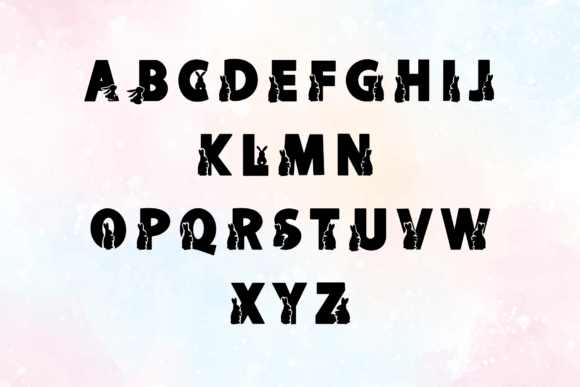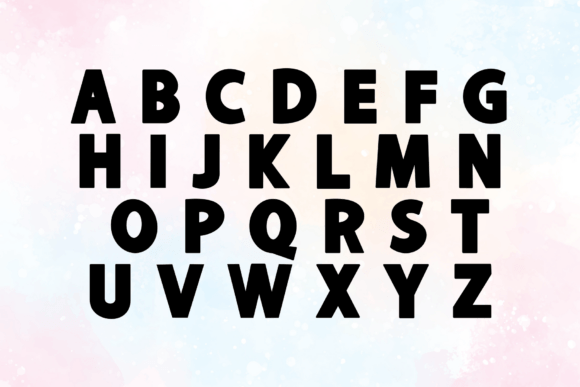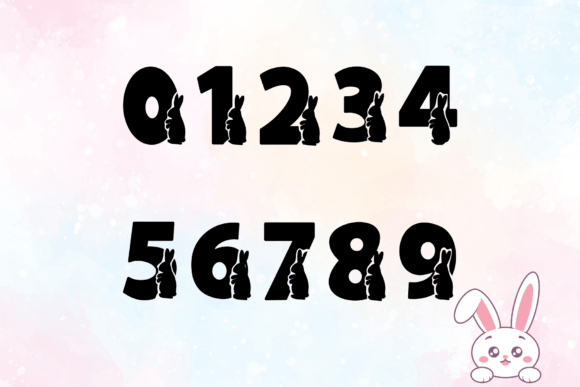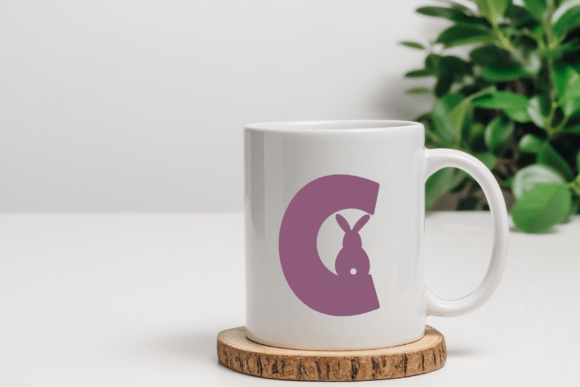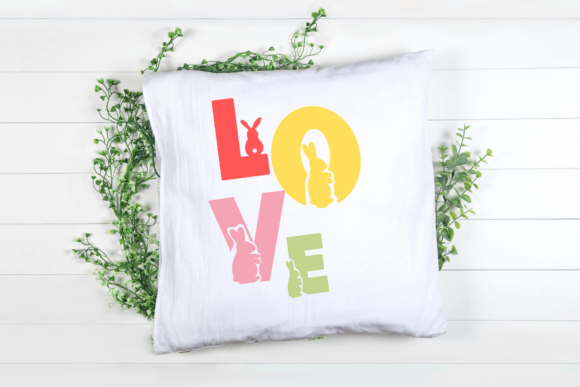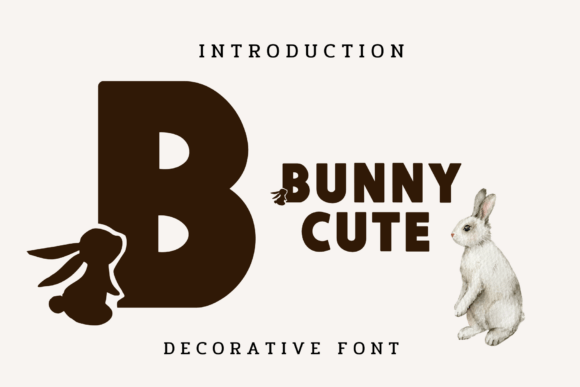
Bunny Cute Font: The Ultimate Decorative Font for Creative Projects
Are you a designer, crafter, or DIY enthusiast looking for a fun and playful font to add a touch of whimsy to your projects? Look no further than Bunny Cute Font! This adorable decorative font is perfect for a wide range of creative endeavors, from taking notes and writing diaries to creating greeting cards, banners, and social media posts.
What is Bunny Cute Font?
Bunny Cute Font is a decorative font designed to bring a smile to your face. Its playful and charming appearance makes it ideal for projects that require a personal touch. Whether you’re a professional designer or a crafty hobbyist, this font is sure to inspire your creativity and add a dash of fun to your work.
Uses for Bunny Cute Font
The versatility of Bunny Cute Font is one of its most appealing features. Here are just a few ideas for how you can use this delightful font in your projects:
- Note-taking and journaling: Add a touch of personality to your notes and diary entries with Bunny Cute Font. It’s the perfect way to make your writing more visually appealing and fun to read.
- Greeting cards and invitations: Create one-of-a-kind greeting cards, invitations, and party decorations with Bunny Cute Font. Its playful design is sure to delight your friends and family.
- Banners and signs: Use Bunny Cute Font to create eye-catching banners and signs for parties, events, or DIY projects. Its bold and colorful design is sure to grab attention.
- Social media posts: Add a dash of whimsy to your social media posts with Bunny Cute Font. It’s a great way to make your content more engaging and shareable.
- Mugs, cards, and shirts: Create personalized gifts, such as mugs, cards, and shirts, with Bunny Cute Font. Its cute design is sure to make your gifts stand out.
- Stationery and crafts: Use Bunny Cute Font to create custom stationery, craft projects, and DIY decorations. Its versatility and charm make it perfect for a wide range of creative endeavors.
Why Choose Bunny Cute Font?
So why choose Bunny Cute Font for your projects? Here are just a few reasons:
- Unique and playful design: Bunny Cute Font has a one-of-a-kind design that’s sure to add a touch of personality to your projects.
- Easy to read and use: Despite its playful design, Bunny Cute Font is easy to read and use, making it perfect for a wide range of projects.
- Versatile: Bunny Cute Font can be used for a wide range of projects, from digital designs to handmade crafts.
- Fun and engaging: Bunny Cute Font is sure to bring a smile to your face and add a dash of fun to your projects.
Tips for Using Bunny Cute Font
Here are a few tips for getting the most out of Bunny Cute Font:
- Experiment with colors: Bunny Cute Font looks great in a variety of colors, so don’t be afraid to experiment and find the perfect hue for your project.
- Pair with other fonts: Try pairing Bunny Cute Font with other fonts to create a unique and visually appealing design.
- Use it sparingly: While Bunny Cute Font is adorable, it can be overwhelming if used too much. Try using it sparingly to add a touch of personality to your project.
Bunny Cute Font is a delightful decorative font that’s perfect for designers, crafters, and DIY enthusiasts. Its playful and charming design makes it ideal for a wide range of creative projects, from note-taking and journaling to creating greeting cards, banners, and social media posts. With its versatility, ease of use, and fun design, Bunny Cute Font is sure to become a favorite in your creative toolkit.